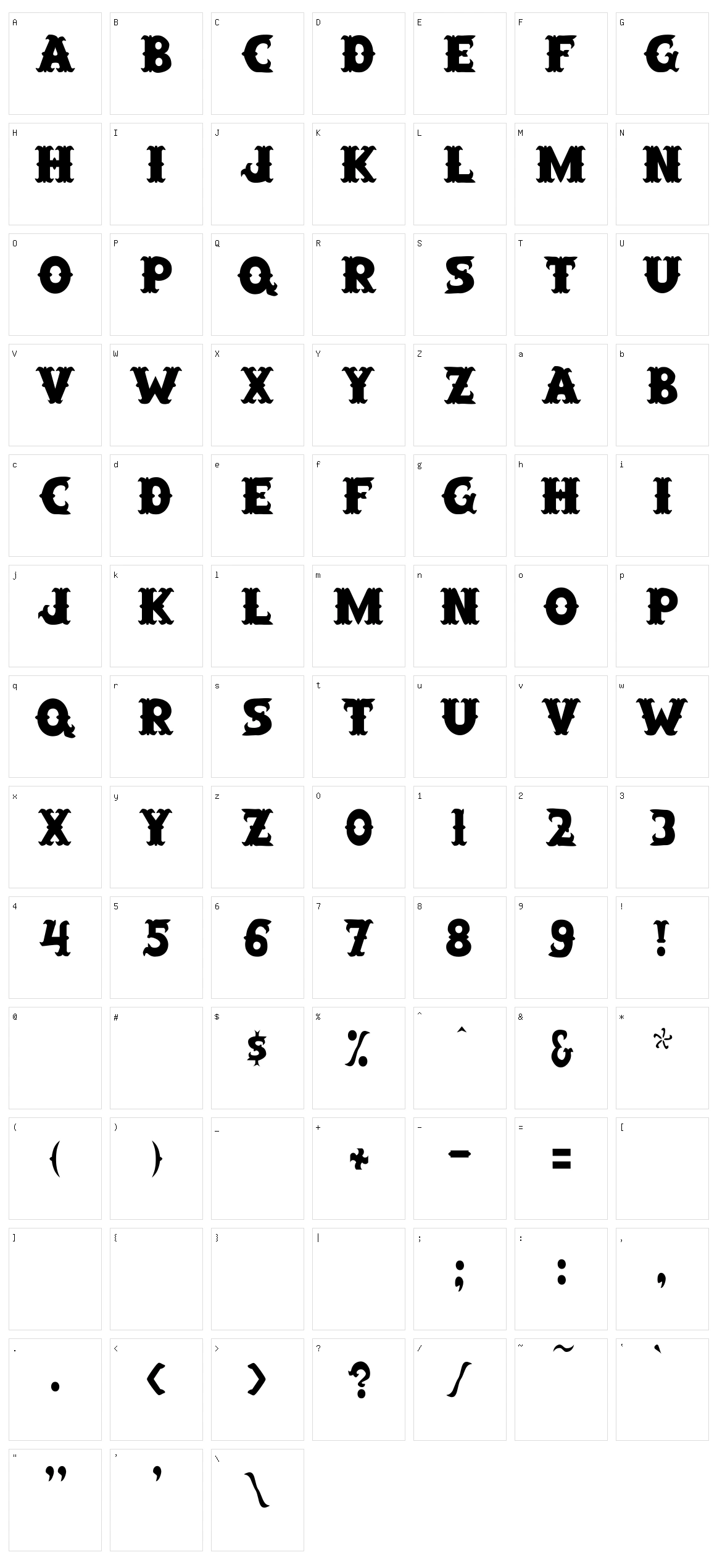
The free font Saloon is carefully designed by Robert Schenk, showcasing a thoughtful balance of creativity and usability and falls under the Western font style. When you download the ZIP file, it contains only 20.57 KB of font files, making it lightweight and quick to download. Please review the license details below to understand permitted usage and distribution rights. If license information is not available, we recommend using this font for personal projects only or contacting the author directly for commercial usage permissions.